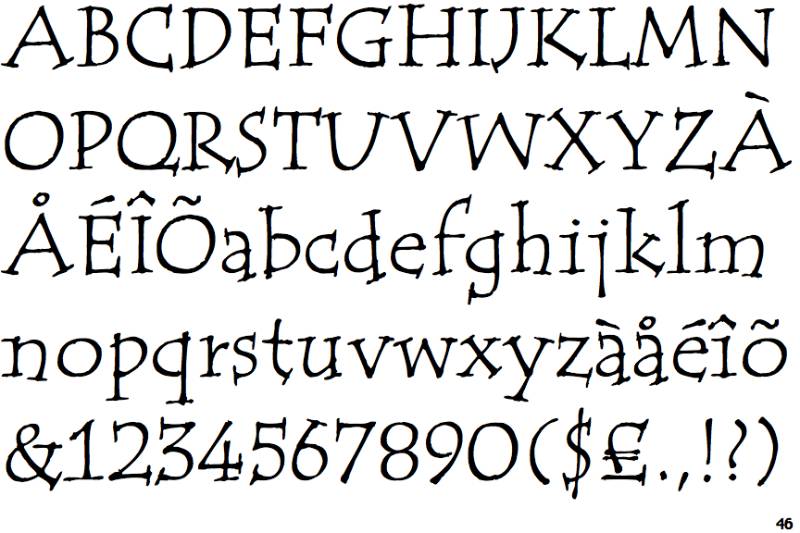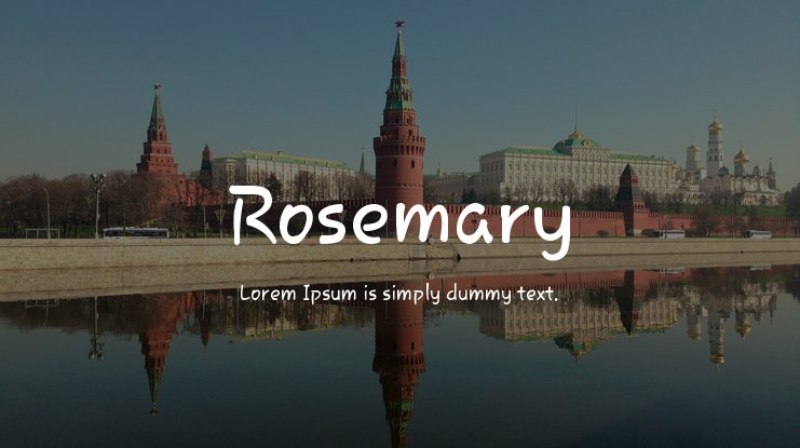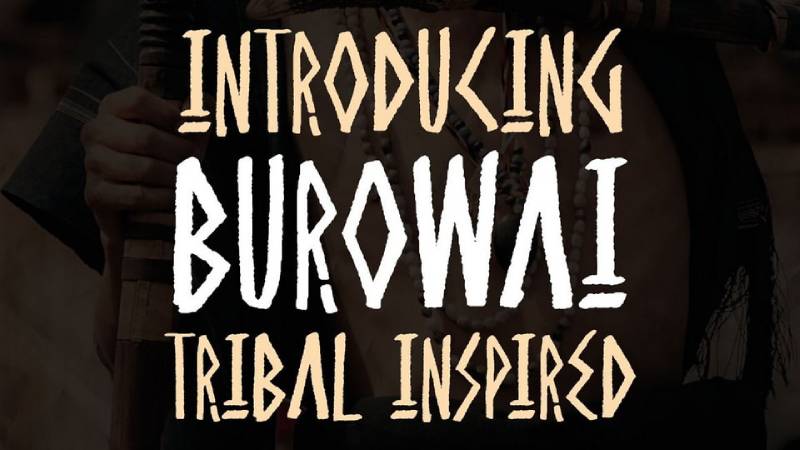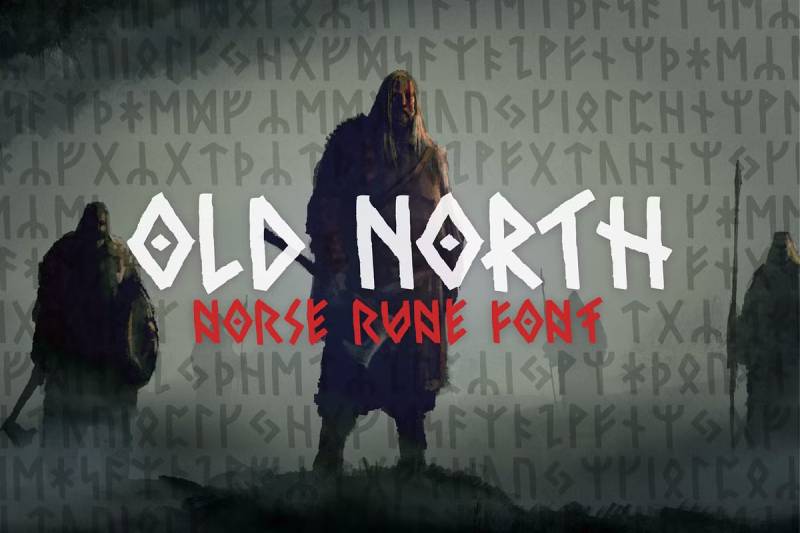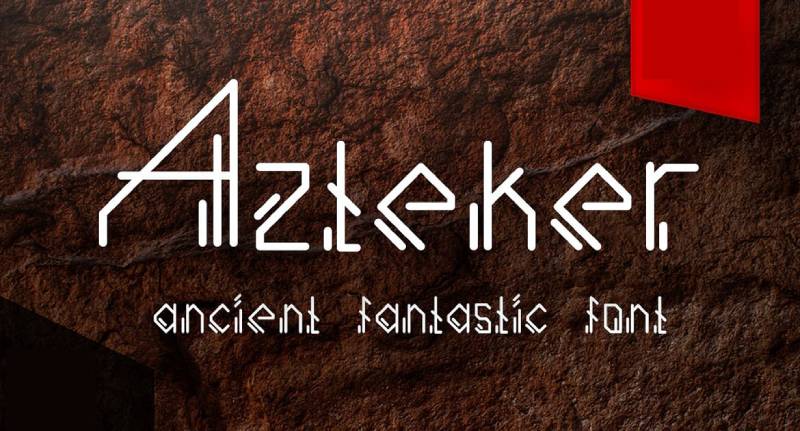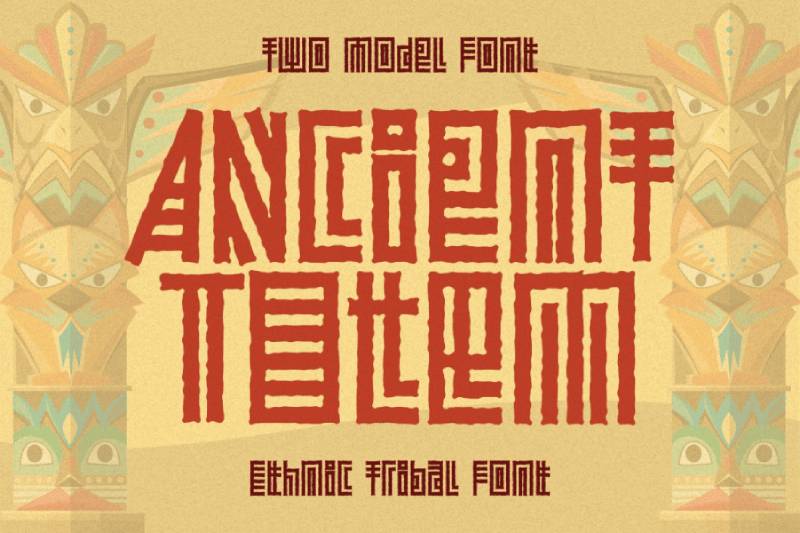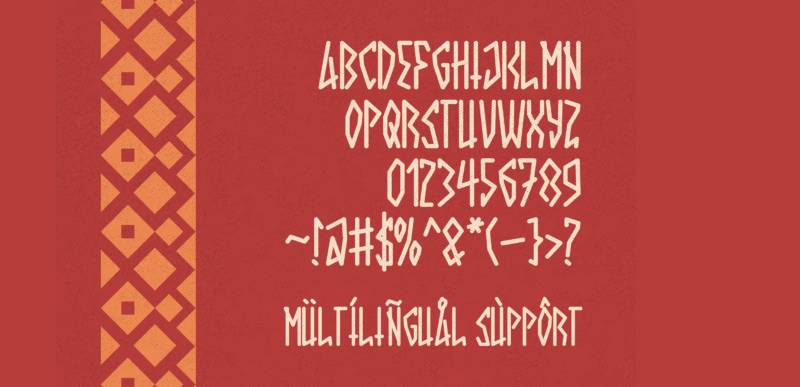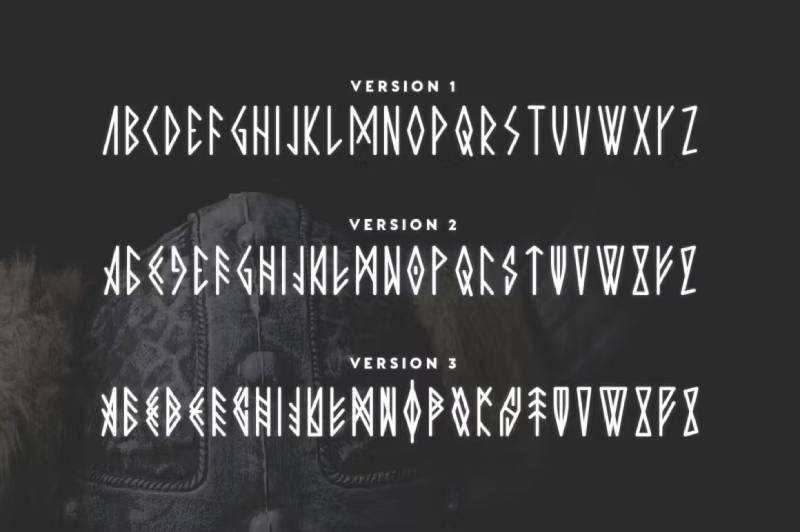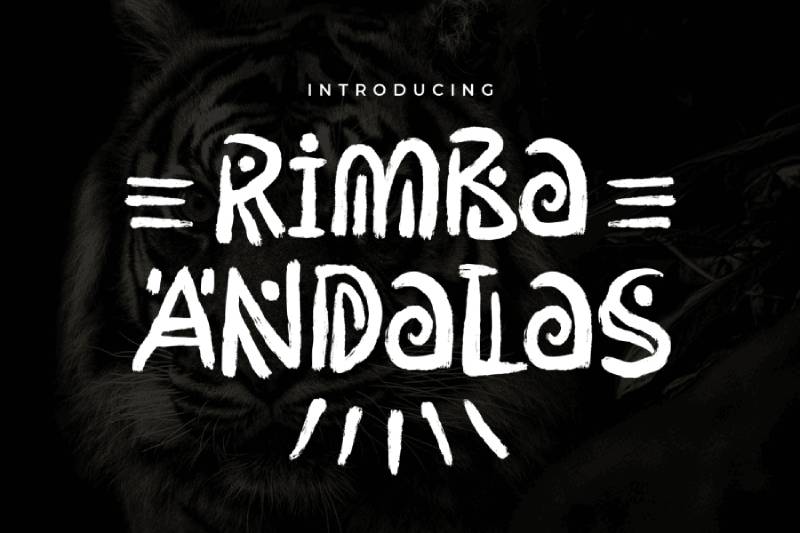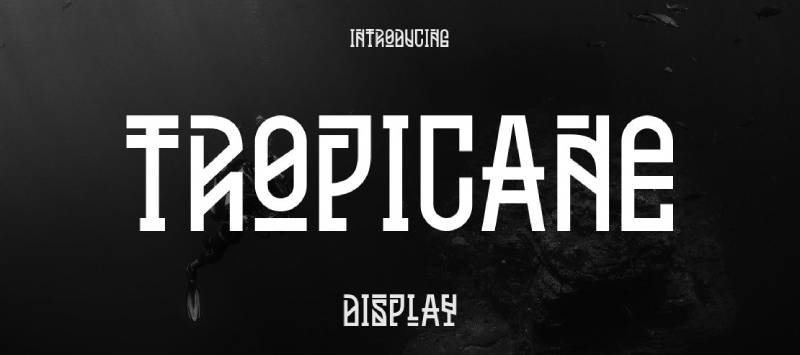
Papyrus divides the design world like few other typefaces. Love it or hate it, you’ve probably overused it at some point.
The good news? Plenty of fonts similar to Papyrus exist without the controversial baggage. These alternatives capture that organic, ancient, handcrafted aesthetic while offering better versatility and professional credibility.
This guide examines 25 carefully selected alternatives across different styles. You’ll discover options for typography projects ranging from ancient civilizations to modern tribal designs, from script fonts to decorative display faces.
Each font includes visual characteristics, design origins, usage recommendations, and technical specifications. Whether you need something for branding, editorial design, or cultural projects, you’ll find better options than reaching for that overused default.
Fonts Similar To Papyrus
| Font Name | Primary Context | Best Use Cases | Style Attributes |
|---|---|---|---|
| Parchment MF | Historical Documents | Manuscripts, certificates, vintage designs | Aged texture, script-like |
| ITC Tempus | Classic Typography | Books, formal publications, editorial | Roman capitals, refined serif |
| Rosemary | Botanical & Natural | Herbal products, organic branding, nature themes | Organic flow, hand-drawn feel |
| Burowai | Ethnic & Cultural | Cultural events, world music, ethnic restaurants | Tribal influence, decorative |
| Old North | Norse & Medieval | Viking themes, fantasy games, historical fiction | Runic styling, ancient Norse |
| Azteker | Pre-Columbian | Mexican restaurants, archaeological content, cultural heritage | Aztec-inspired, geometric patterns |
| Ancient Totem | Indigenous & Spiritual | Native art, spiritual content, tribal designs | Totem-like, symbolic forms |
| Nomad Tribes | Adventure & Travel | Travel blogs, adventure brands, nomadic lifestyle | Wanderlust aesthetic, rough texture |
| Jotunheim | Nordic Mythology | Fantasy games, Norse mythology, metal bands | Mythological, giant-realm inspired |
| Nowra | Australian Indigenous | Aboriginal art, Australian tourism, cultural projects | Aboriginal art influence |
| Rimba Andalas | Southeast Asian | Indonesian culture, tropical themes, Asian cuisine | Rainforest aesthetics, tropical |
| Paraoh | Ancient Egyptian | Egyptian history, museums, archaeological sites | Hieroglyphic influence, pharaonic |
| Tropicane | Tropical & Resort | Beach resorts, tropical drinks, vacation branding | Island vibes, relaxed feel |
| Papira | Paper & Craft | Stationery, handmade products, craft businesses | Paper-like texture, artisanal |
| Magalon | Magic & Fantasy | Fantasy literature, RPG games, mystical branding | Magical aesthetic, spell-like |
| Duffy Script | Casual Handwriting | Personal blogs, greeting cards, informal messaging | Brush lettering, casual script |
| Film Cryptic | Cinema & Mystery | Movie posters, thriller content, mysterious themes | Cinematic, enigmatic |
| Plato | Philosophy & Academia | Educational content, philosophy sites, academic papers | Classical Greek, scholarly |
| Humana Sans ITC | Modern Humanist | Healthcare, human services, accessible design | Friendly sans-serif, humanistic |
| Inkster | Tattoo & Art | Tattoo shops, street art, alternative culture | Ink-drawn, artistic grunge |
| Rotis Semi Serif | Transitional Hybrid | Corporate identity, signage, versatile applications | Semi-serif blend, balanced |
| Mateo | Spanish Heritage | Spanish restaurants, Latin culture, Mediterranean themes | Iberian influence, cultural |
| ITC Highlander | Scottish & Celtic | Scottish brands, Celtic themes, whisky labels | Highland aesthetic, Celtic knots |
| Alcuin | Carolingian Script | Religious texts, medieval manuscripts, classical studies | Medieval calligraphy, monastic |
| Vaska | Eastern European | Slavic culture, Eastern European restaurants, folklore | Cyrillic influence, traditional |
Parchment MF
Parchment MF delivers a calligraphic style inspired by historical manuscripts and ancient writing traditions. Rick Mueller created this font to replicate the appearance of ink on aged parchment material.
Visual Characteristics
The letterforms feature irregular strokes that mimic hand-drawn penmanship.
Uppercase characters are bold and prominent while lowercase letters maintain gentle curves with subtle flourishes. Each character displays slightly uneven edges that suggest texture without being heavy-handed. The overall effect reads as historical but remains clean enough for modern applications.
Design Origin & Context
Mueller designed Parchment MF in 1995 using Altsys Fontographer 4.1. The font emerged during a period when designers sought alternatives to standard computer typefaces. Mueller’s approach focused on capturing the organic imperfections found in actual manuscript writing.
Usage & Applications
This font works well for invitations, certificates, and historical-themed design projects. Museums and cultural organizations use it for exhibition materials.